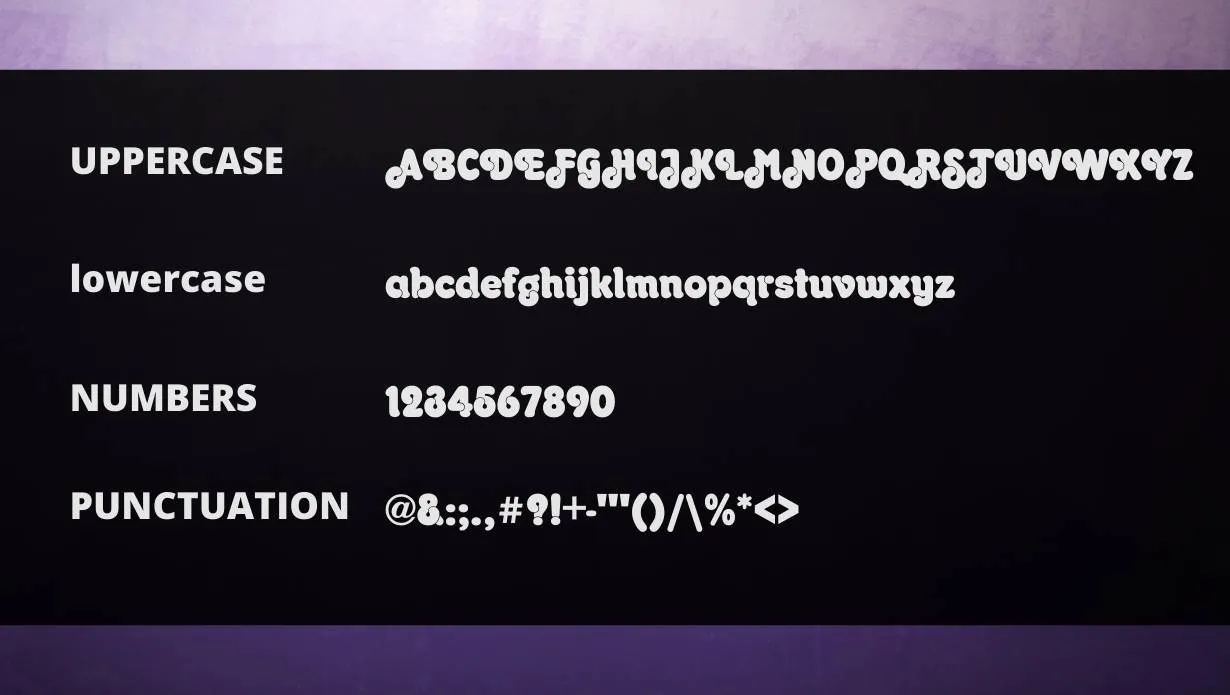
Octothorpe font was created by the British typeface designer John Thompson. Thompson was born in 1838, and he began his career as an apprentice to a typeface designer in London.
Make your design project Splatter with this typeface. Use the cooper font with its replacement or as a pairing function.
View of Octothorpe Font
| Designer | John Thompson |